Choosing from beach fonts for coastal & summer designs starts with the job your typography must do. Consider the words, their final size, and the mood of the project. The options below are organized to help you compare useful directions before testing candidates in your own layout.
How to evaluate the options
Set the real headline, name, or label in each candidate. Check legibility at the final size, compare the capitals and repeated letters, and leave enough room for decorative details. Use a quieter companion font for long descriptions and other supporting text.
Font picks
Beach Waves Duo Font for logos
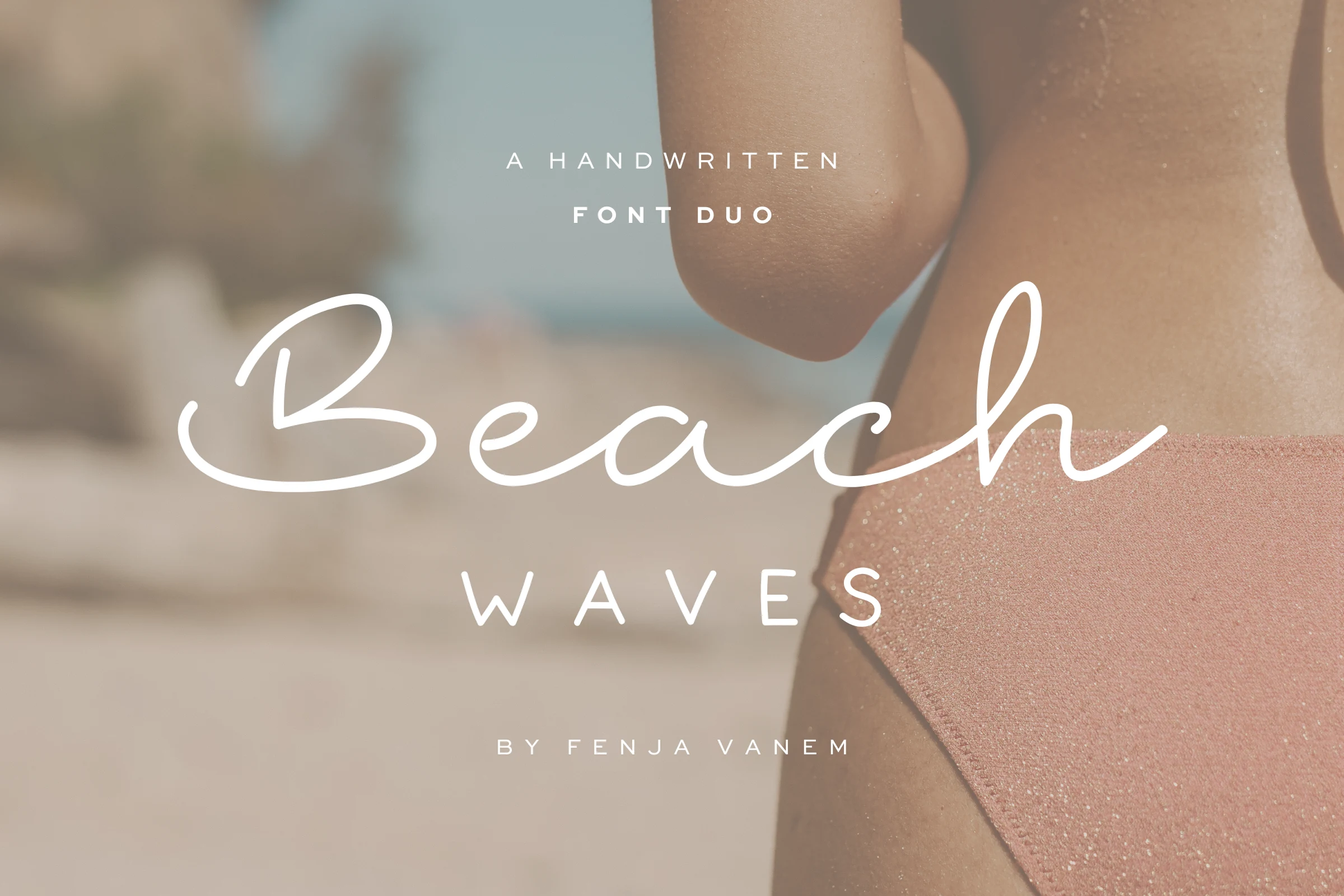
Beach Waves Duo Font is worth testing for logos, branding, and invitations. Look for an even, monoline stroke and rounded letter shapes when comparing it with other options. Test connected letters in the exact words you plan to use.
Blue Ocean Font for logos
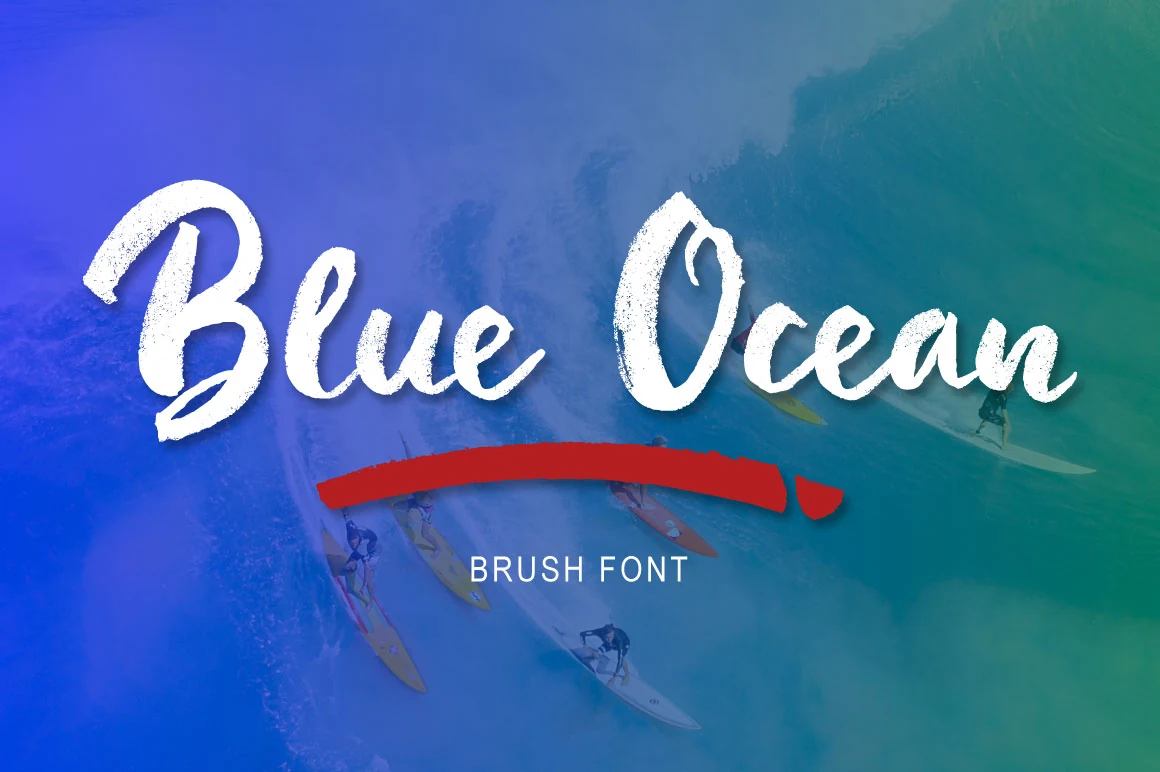
For logos, signage, and T-shirts, consider Blue Ocean Font. Its design draws on brush-like movement and rounded letter shapes. Check how the texture holds up against the background.
Ocean Beach Font for logos
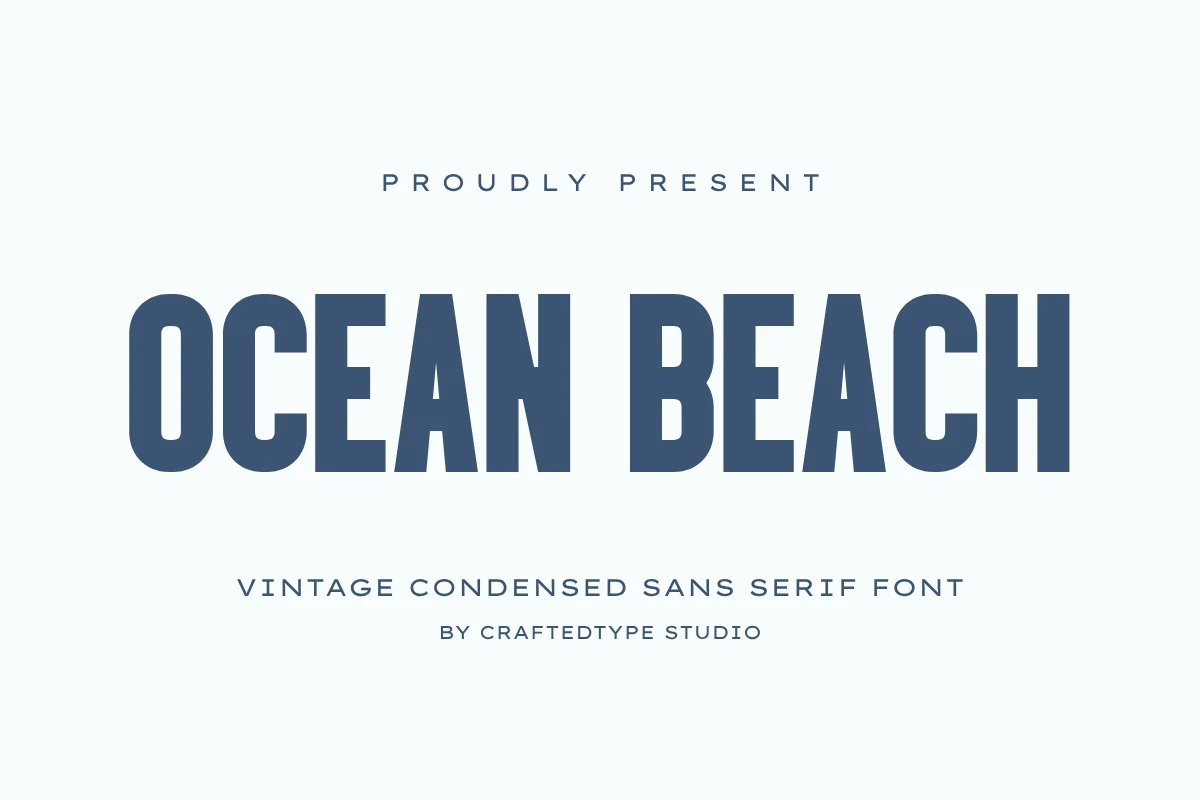
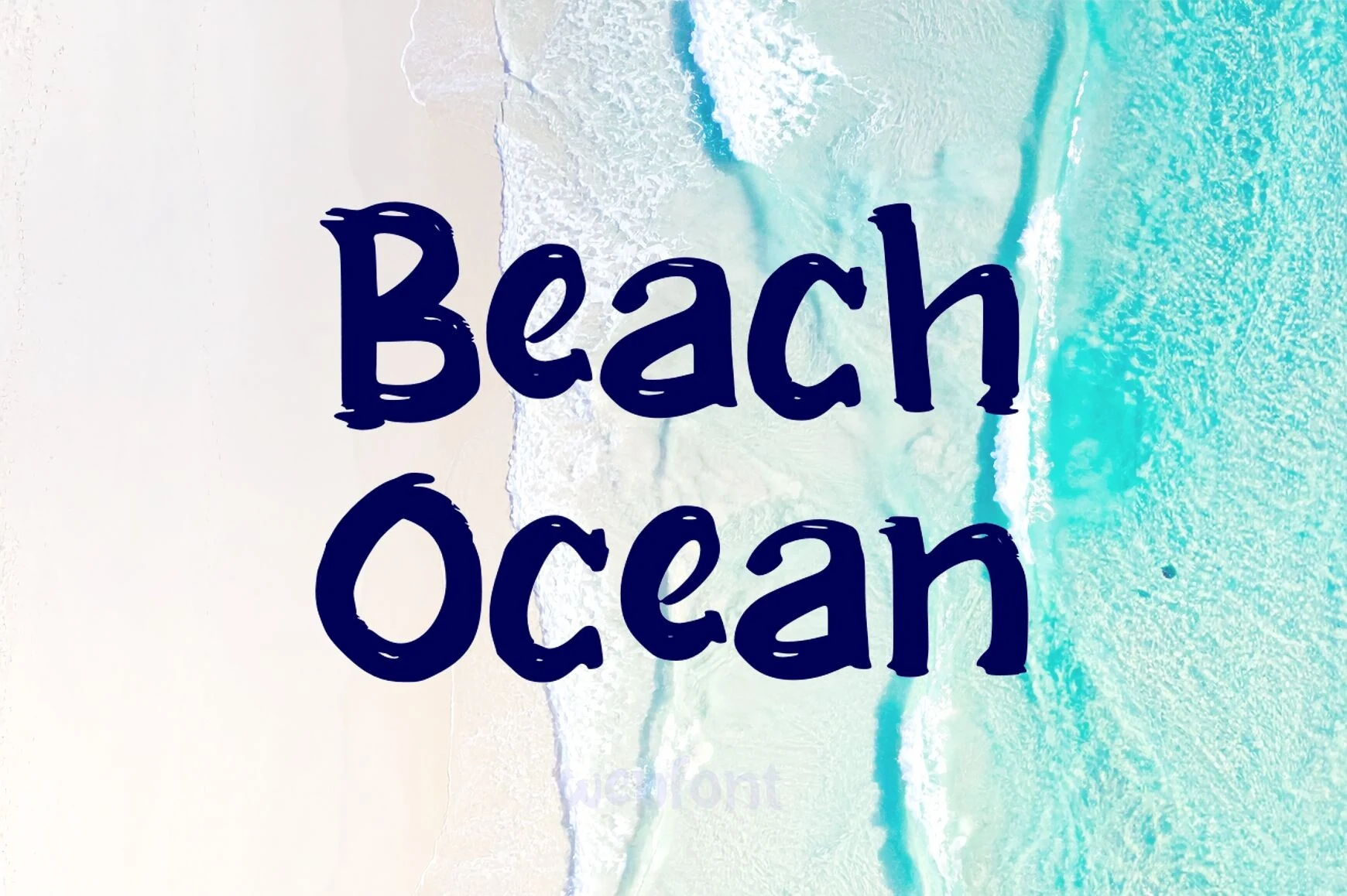
Ocean Beach Font can anchor logos, posters, and T-shirts. The main visual cues are narrow proportions and serif details. Compare the width and spacing in your intended layout.
Bird Beach Font for display text
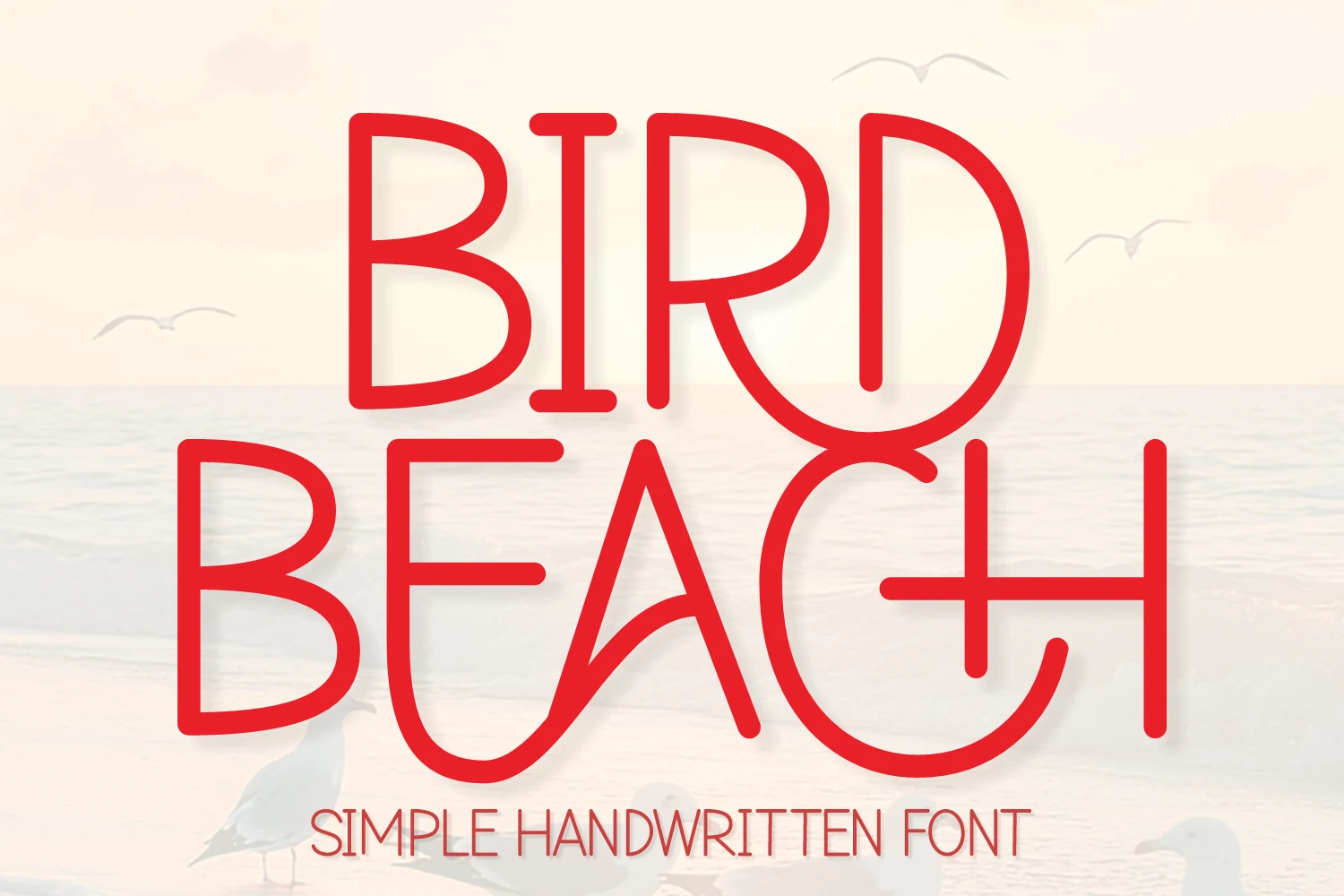
Bird Beach Font is worth testing for display text, headlines, and T-shirts. Look for an even, monoline stroke and brush-like movement when comparing it with other options. Test connected letters in the exact words you plan to use.
Dream Beach Font for logos
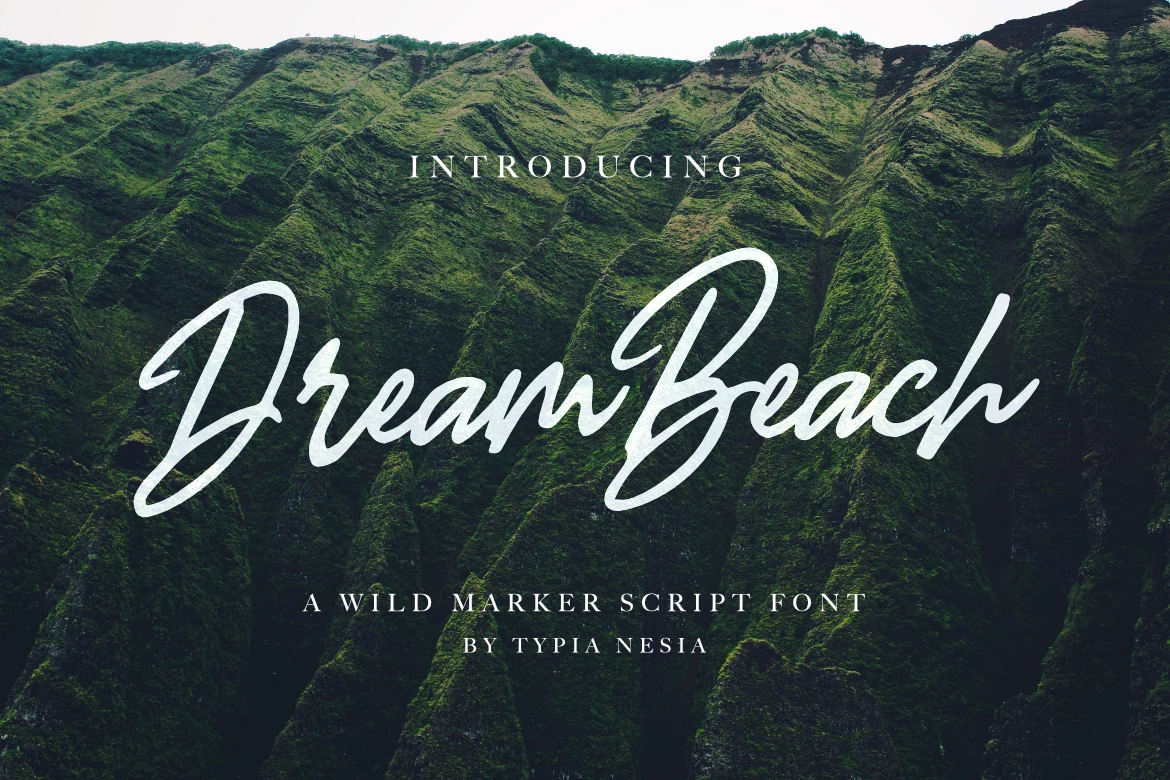
For logos, branding, and posters, consider Dream Beach Font. Its design draws on serif details and flowing script forms. Inspect fine details before using it in small print.
Summer Beach Font for posters
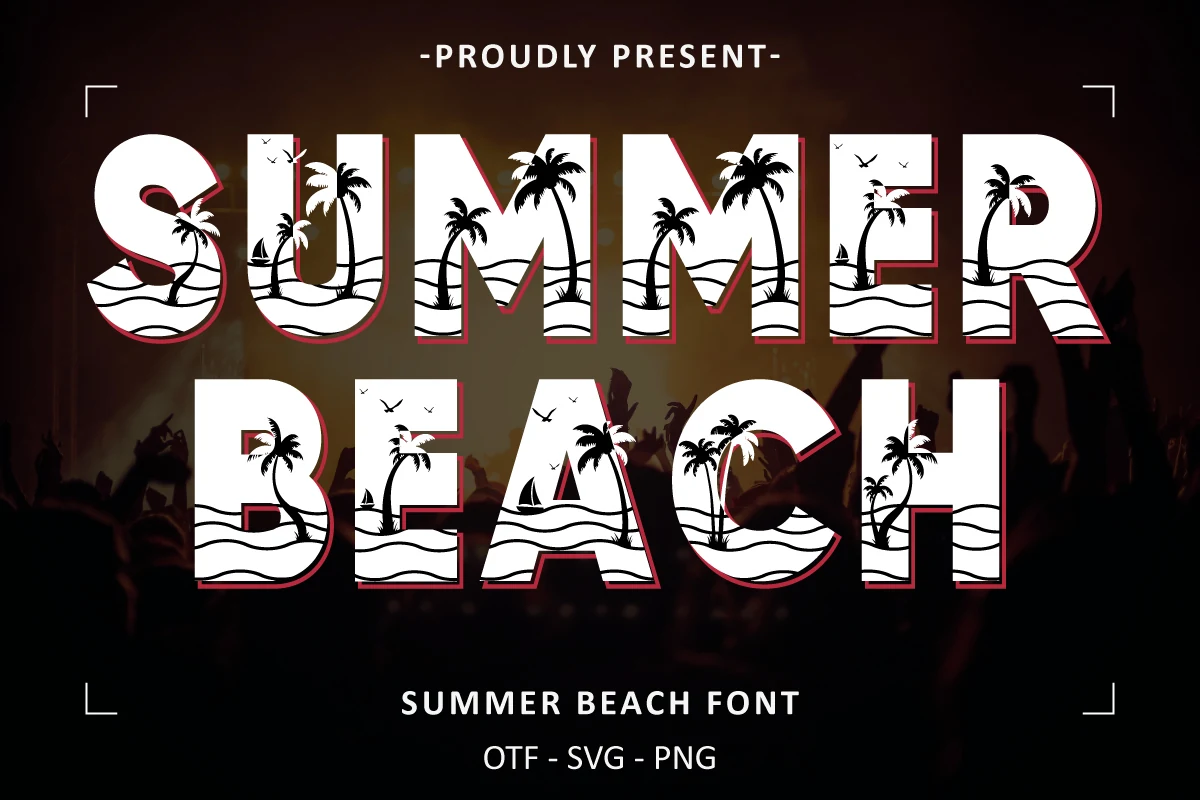
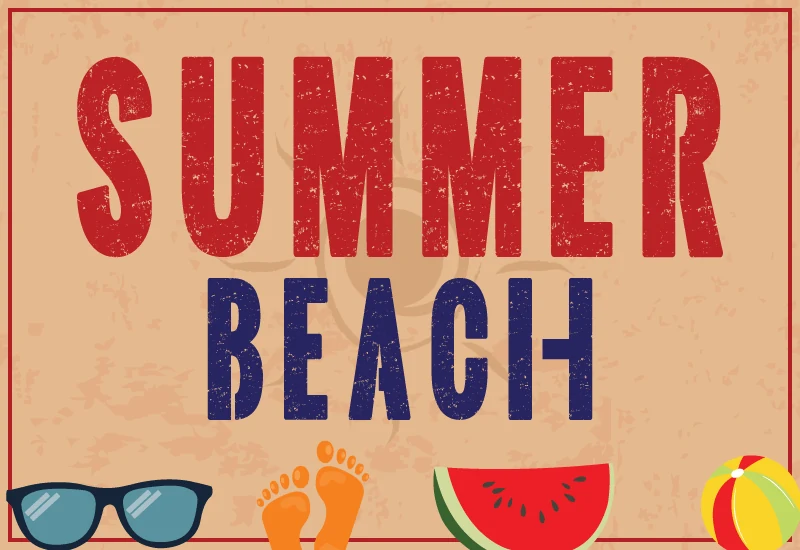
Summer Beach Font can anchor posters, T-shirts, and restaurant menus. The main visual cues are narrow proportions and a retro mood. Compare the width and spacing in your intended layout.
Beach Circle Font for headlines
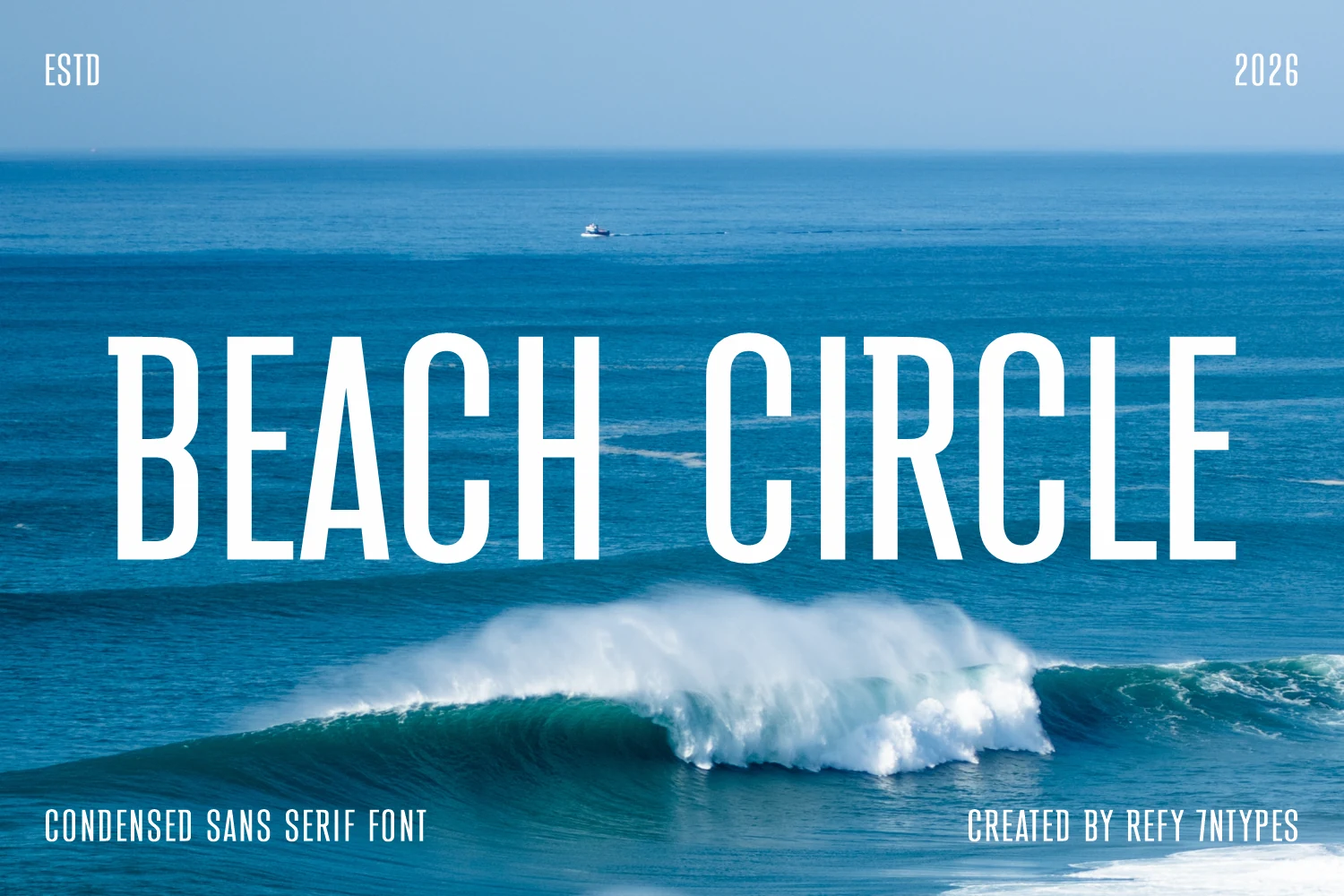
Beach Circle Font is worth testing for headlines, posters, and website headers. Look for narrow proportions and serif details when comparing it with other options. Compare the width and spacing in your intended layout.
Beach Ocean Font for stickers
For stickers, quotes, and T-shirts, consider Beach Ocean Font. Its design draws on rounded letter shapes and display-focused letterforms. Try it at both headline and label size to judge its clarity.
Ocean Hugs Font for children’s designs
Ocean Hugs Font can anchor children’s designs, T-shirts, and stickers. The main visual cues are rounded letter shapes and display-focused letterforms. Try it at both headline and label size to judge its clarity.
Final checks before using a font